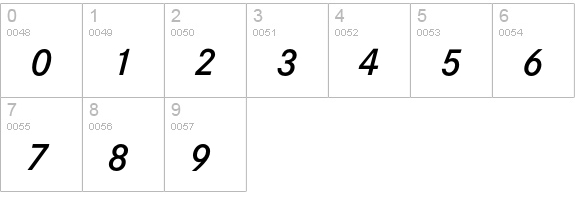
CorporateS-DemiItalic Font Details
Introducing CorporateS-DemiItalic font - a sleek and modern typeface designed for corporate and professional use. This elegant font strikes the perfect balance between professionalism and creativity, making it suitable for a wide range of design projects. The semi-italic styling adds a touch of sophistication, making your text stand out with a subtle flair. CorporateS-DemiItalic font is not only visually appealing but also highly versatile. Whether you're designing a business presentation, website, or marketing materials, this font will elevate your content and give it a polished look. Its clean lines and balanced proportions ensure readability across various platforms and applications. The best part? CorporateS-DemiItalic font is available for free download exclusively at FontsMarket.com. Now you can enhance your projects with this premium font without breaking the bank. Don't miss out on the opportunity to elevate your designs with CorporateS-DemiItalic font - download it today and take your typography to the next level.